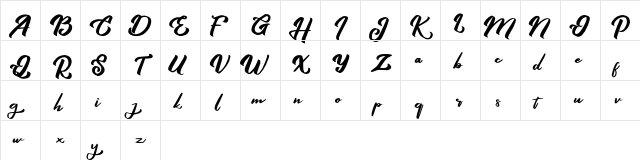
Queny FREE Regular
Design Context for Queny FREE Typeface
Queny FREE is a composed and adaptable typeface that performs quietly and consistently across a wide range of design contexts.
Pro Tip: Use Queny FREE in both headline and body roles to test its range before committing to a single application.